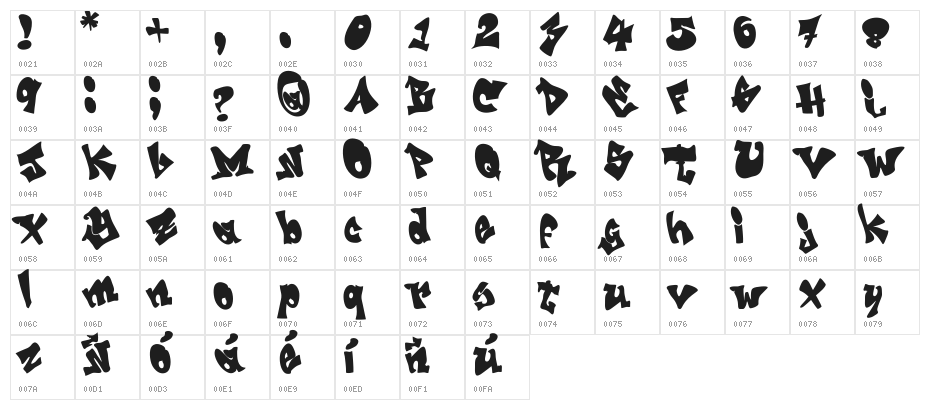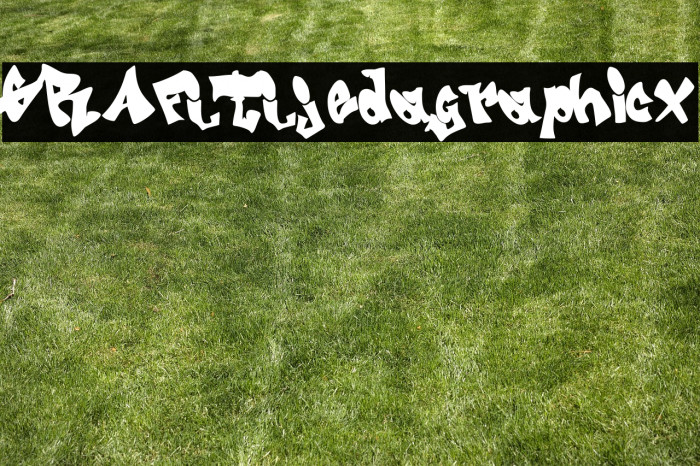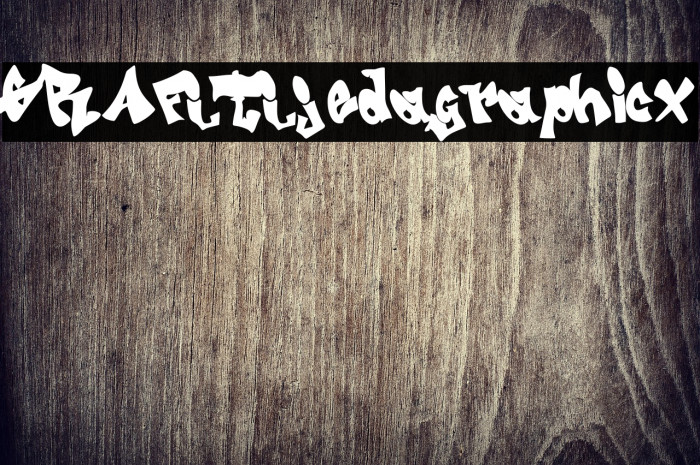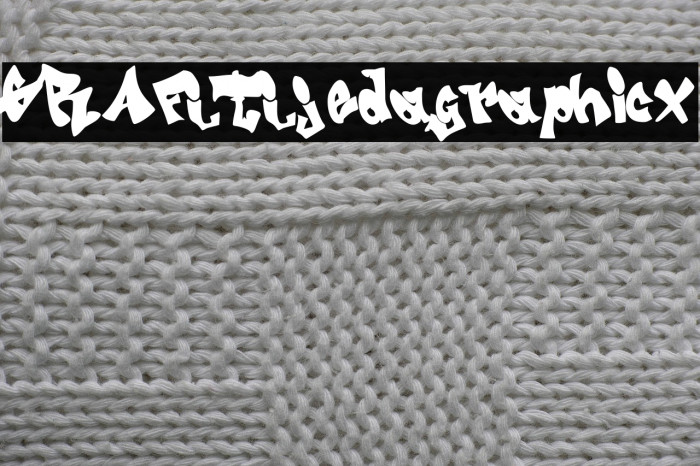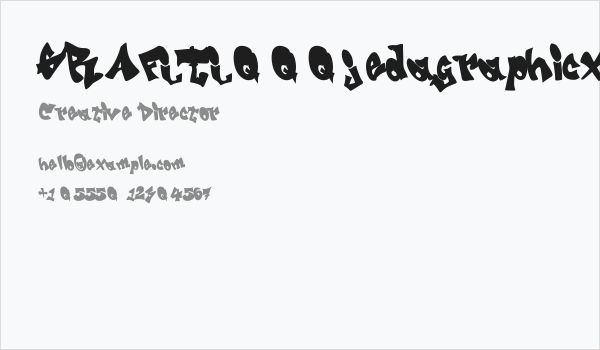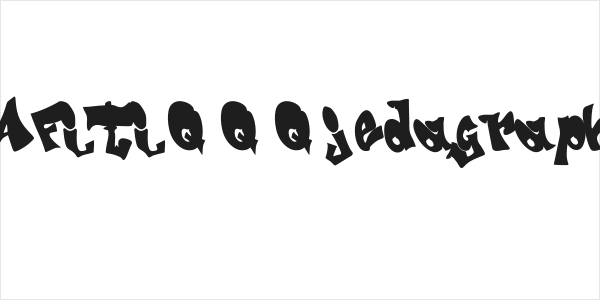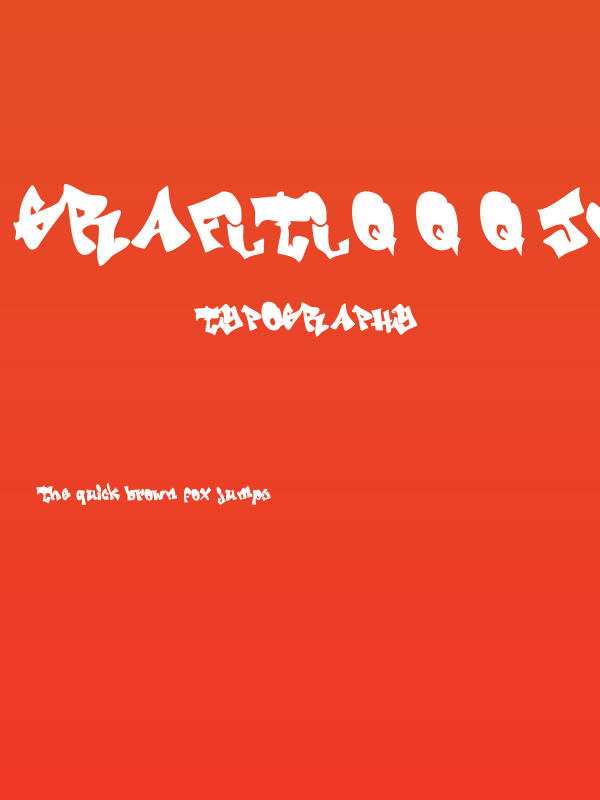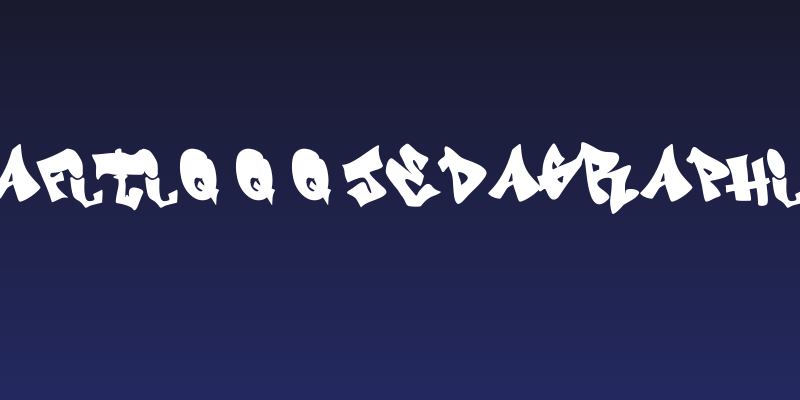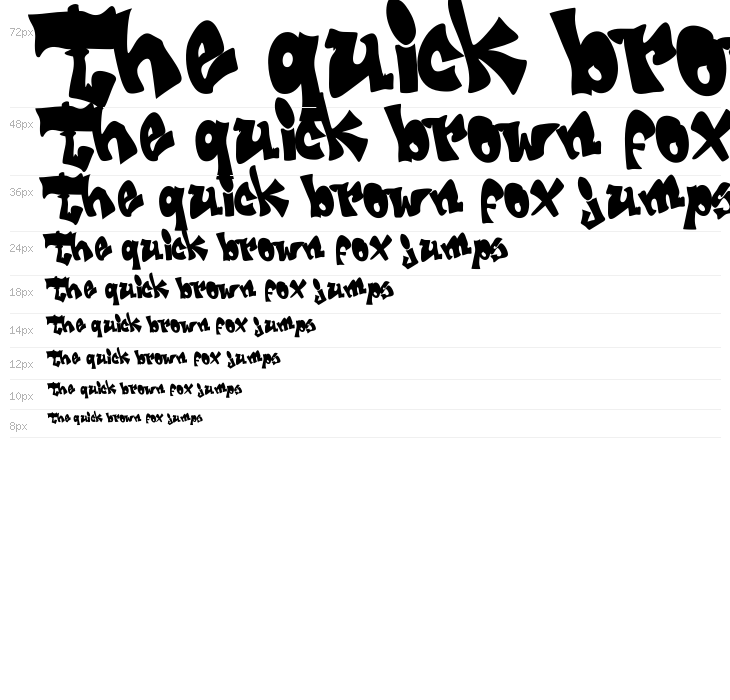
GRAFITI---jedagraphicx Font
GRAFITI---jedagraphicx Description
This font exudes a bold and dynamic graffiti style, characterized by its thick, uneven strokes and playful, exaggerated forms. The letters have a spontaneous and energetic appearance, with each character exhibiting unique, irregular shapes that mimic the fluidity of street art. The uppercase and lowercase letters maintain a consistent style, while the numbers and special characters integrate seamlessly with the overall aesthetic. This font captures the essence of urban culture, making it ideal for projects that aim to convey a sense of rebellion and creativity.
| Overall Style | Urban, Energetic, Rebellious |
| Proposed Projects | Perfect for street art-themed designs, urban branding, music album covers, and youth-oriented marketing materials. |